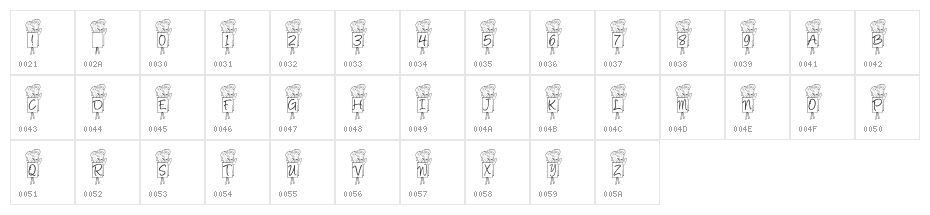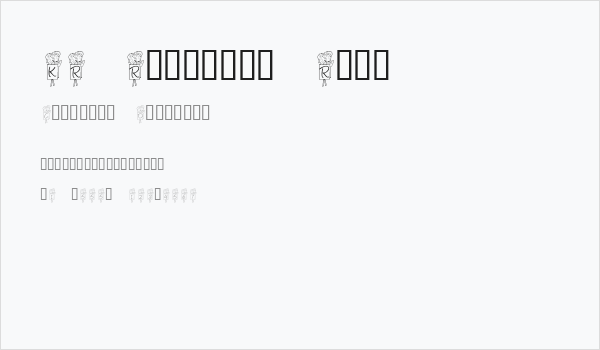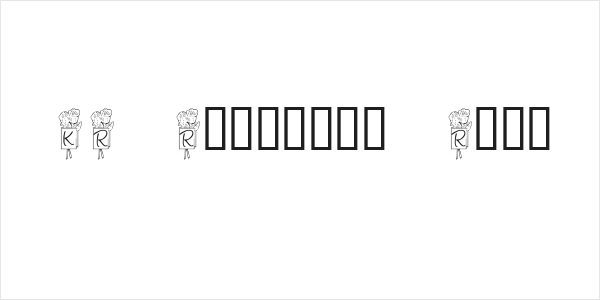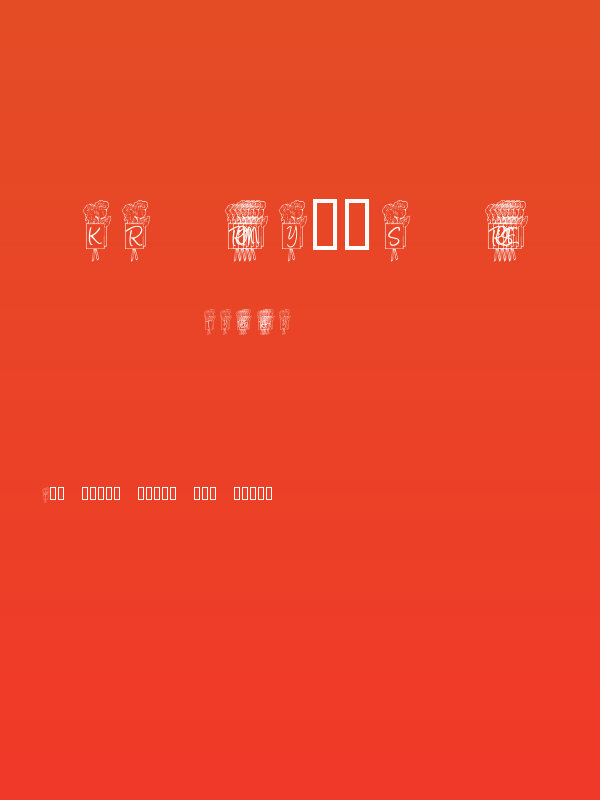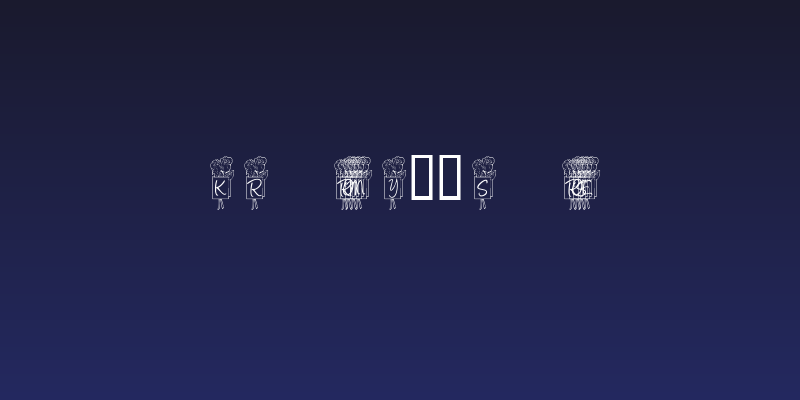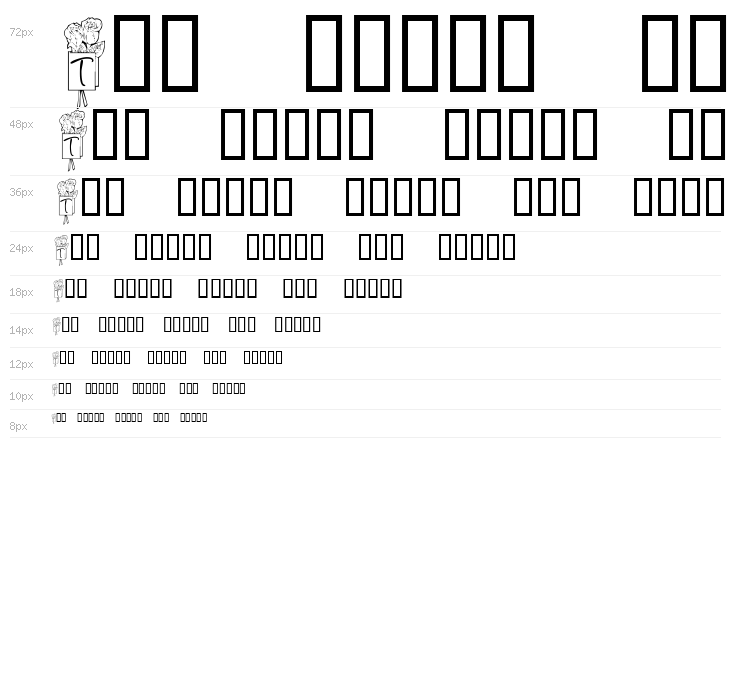
KR Ronny's Rose Font
KR Ronny's Rose Description
This font features a unique and decorative style, incorporating intricate rose designs into each character. The uppercase letters are adorned with detailed rose illustrations, giving them an ornate and artistic appearance. The lowercase letters and numbers maintain a similar aesthetic, with each character framed by a rose motif. The overall design is highly decorative, making it suitable for projects that require a touch of elegance and creativity. The font's intricate details and floral elements make it stand out, offering a visually captivating experience.
Use CaseLogos, Headlines, Decorative text
Proposed ProjectsIdeal for wedding invitations, greeting cards, floral-themed branding, and decorative posters.